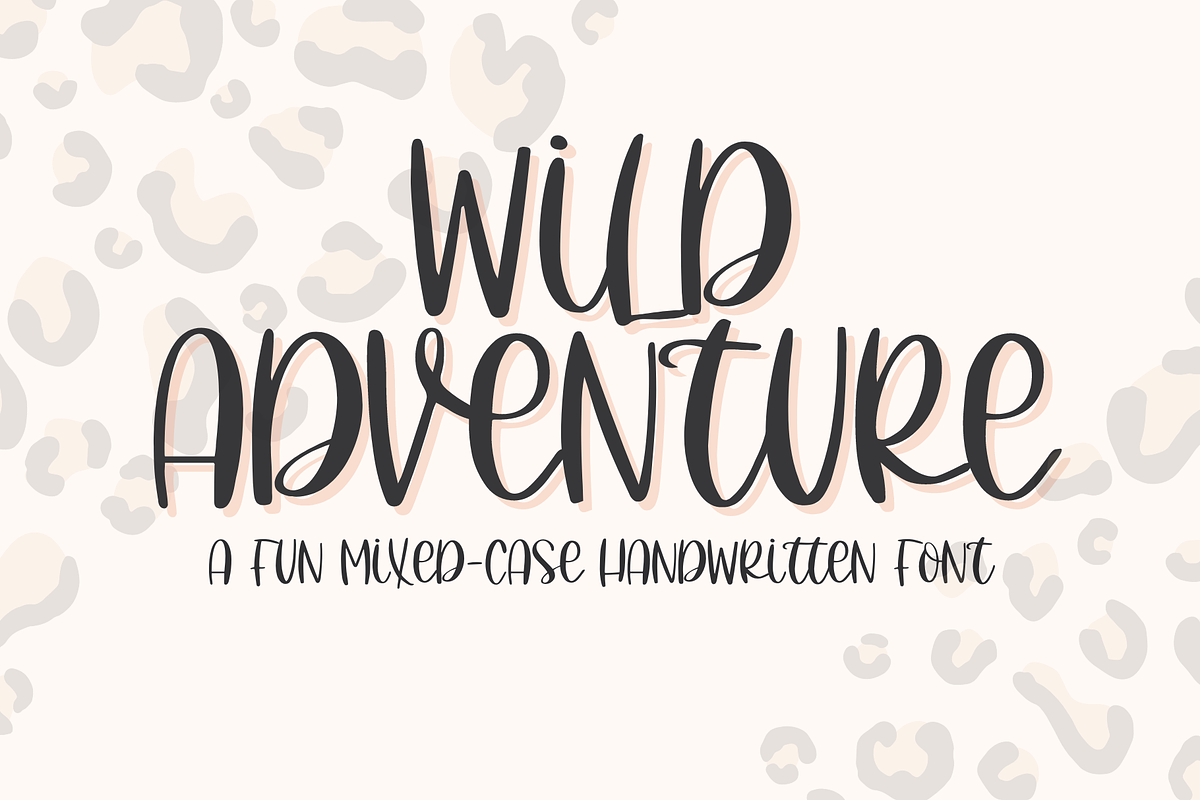
Wild Adventure, Handwritten Script Font Free Download is a charming and adventurous handwritten typeface with bold, natural strokes. This font brings a sense of creativity, freedom, and authenticity to your projects, making it ideal for travel blogs, adventure-themed branding, event invitations, social media graphics, and anything that needs a personal and artistic touch.
Wild Adventure, Handwritten Script Font Free Download offers a unique, artistic vibe with its flowing, handwritten design, perfect for projects that evoke a sense of adventure, nature, and spontaneity. Whether you're working on an outdoor brand, a personal blog, or a creative event, this font adds warmth and energy to your design.